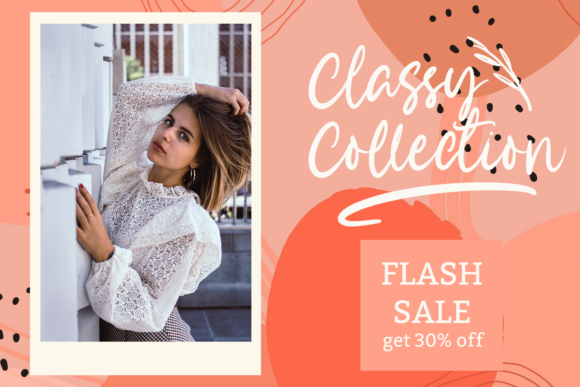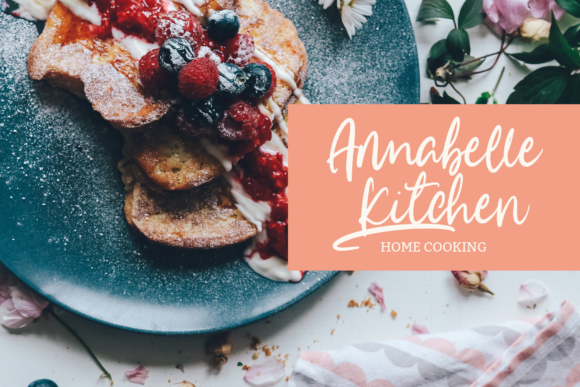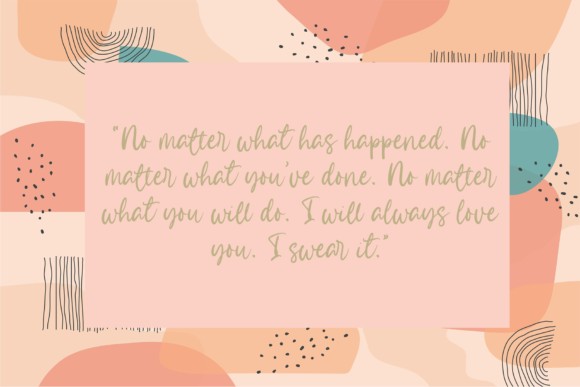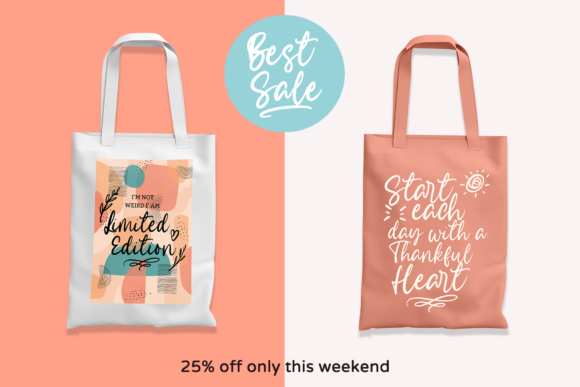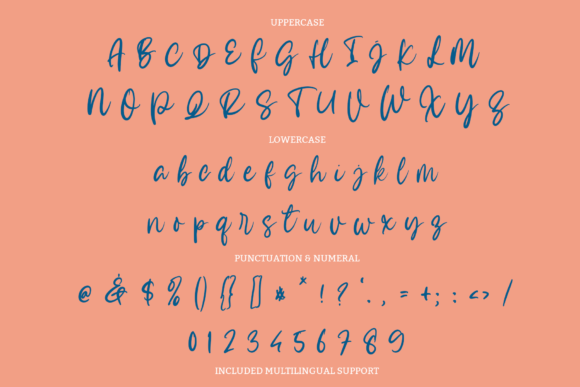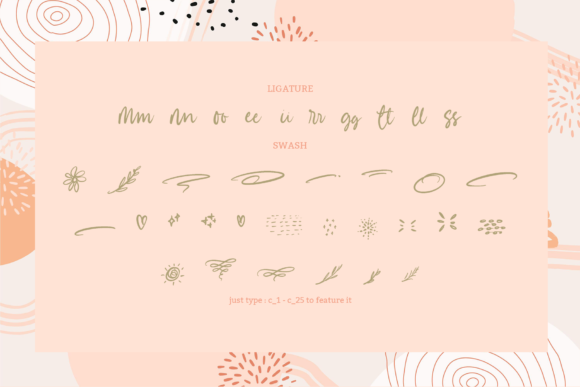
Introduction to Betsy Bailey Font
Betsy Bailey is a sweet and flowing handwritten font.
Key Features of Betsy Bailey Font
Why Choose Betsy Bailey Font?
Betsy Bailey Font offers exceptional quality and versatility, making it a valuable addition to your design toolkit. Whether you’re creating for personal projects or commercial use, Betsy Bailey Font delivers professional results.